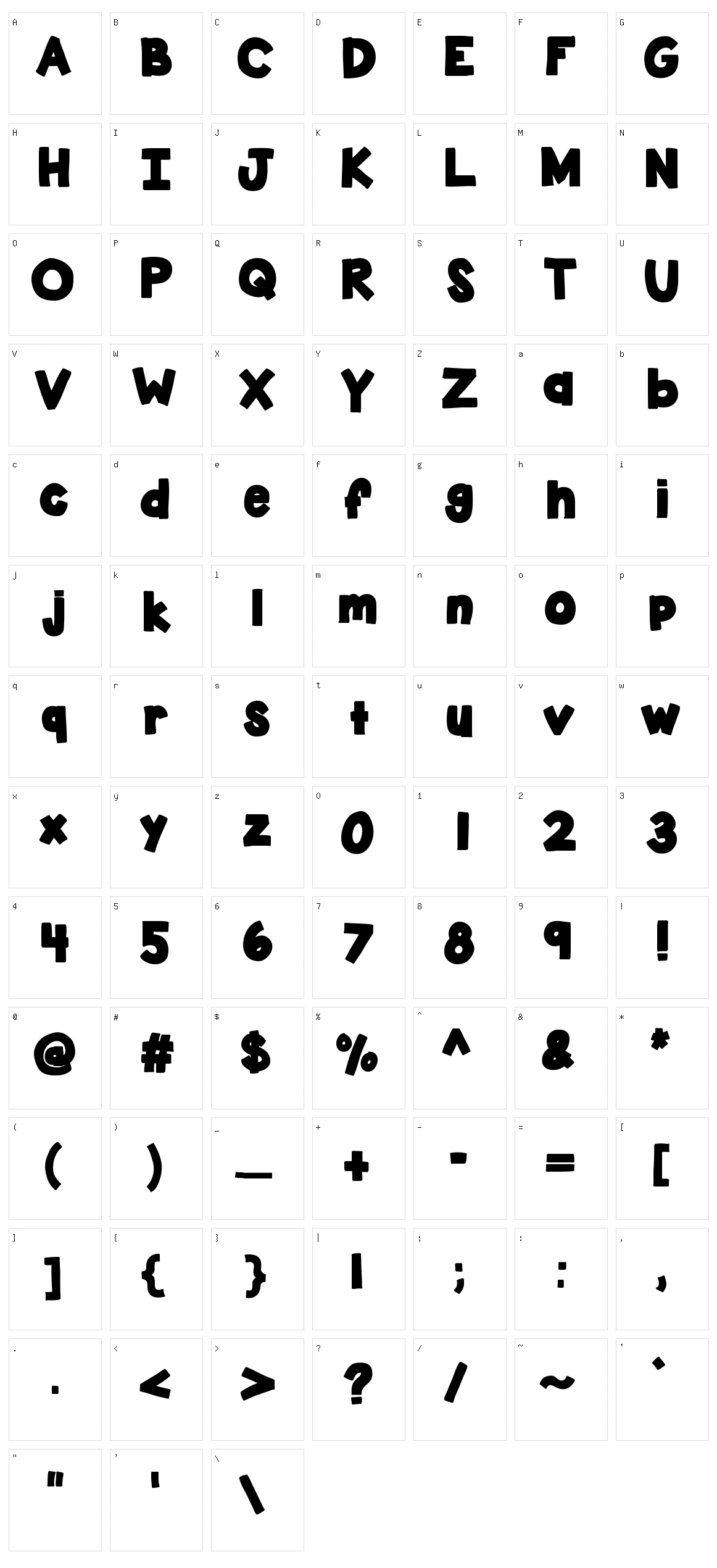
The free font KB Stick To The Plan is carefully designed by Khrys Bosland, showcasing a thoughtful balance of creativity and usability and falls under the Cartoon font style. When you download the ZIP file, it contains only 16.72 KB of font files, making it lightweight and quick to download. Please review the license details below to understand permitted usage and distribution rights. If license information is not available, we recommend using this font for personal projects only or contacting the author directly for commercial usage permissions.